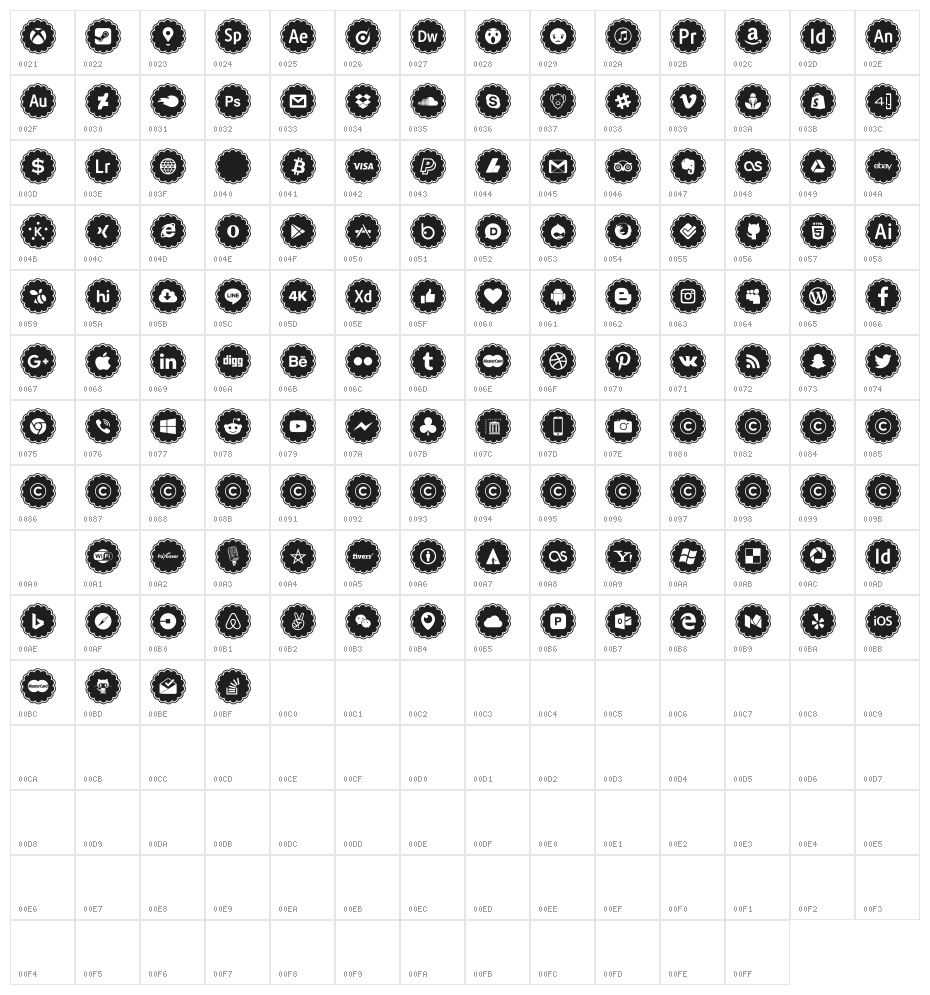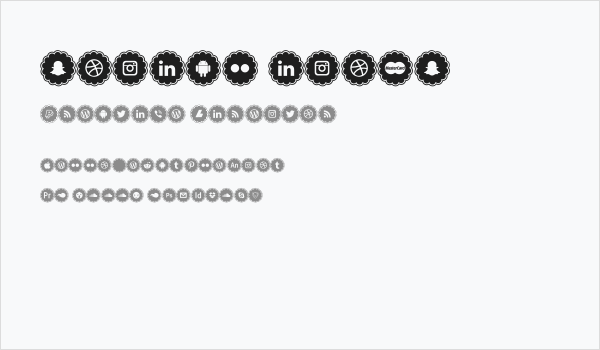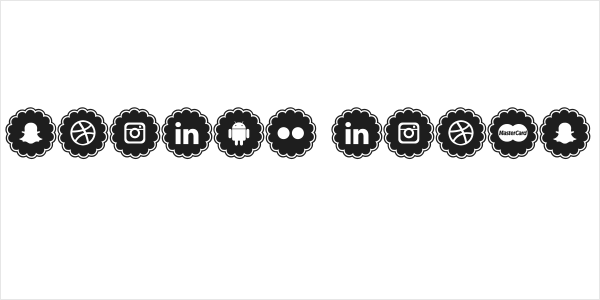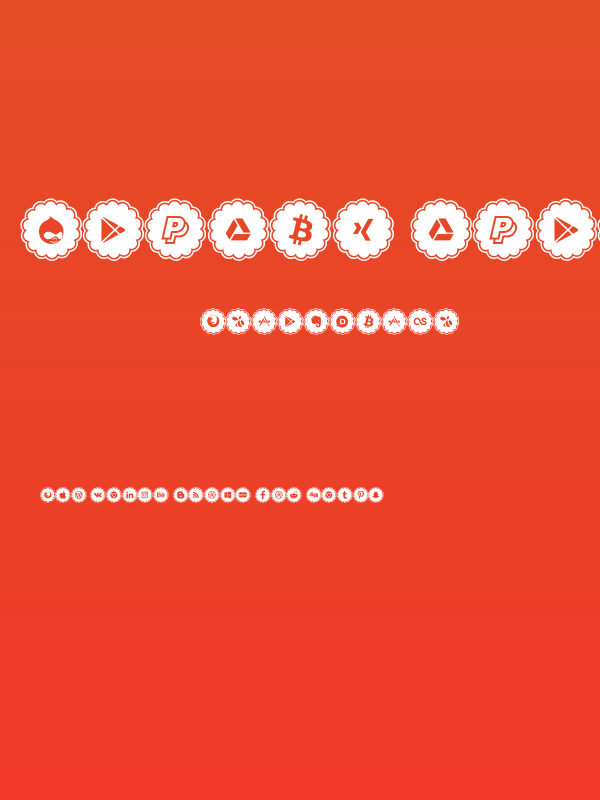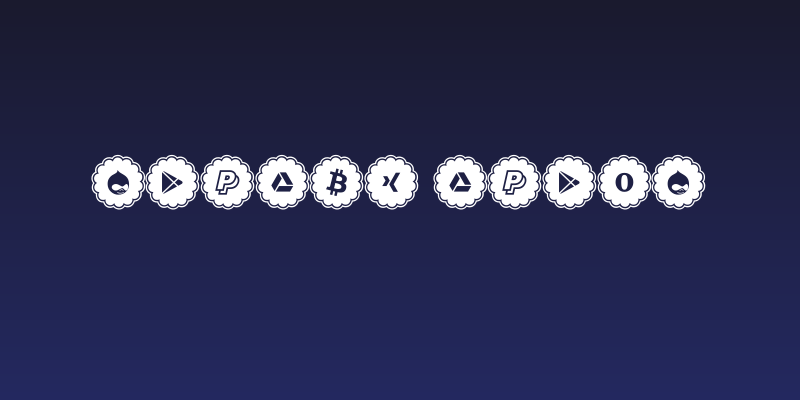
social icons Font
social icons Description
A set of social media and web service icons enclosed in scalloped circular badges, rendered in a bold, high-contrast, monochrome style with simple, easily recognizable glyphs.
| Use Case | Icons, UI elements, Social media links |
| Proposed Projects | Websites, app interfaces, social media graphics, digital dashboards, presentations. |